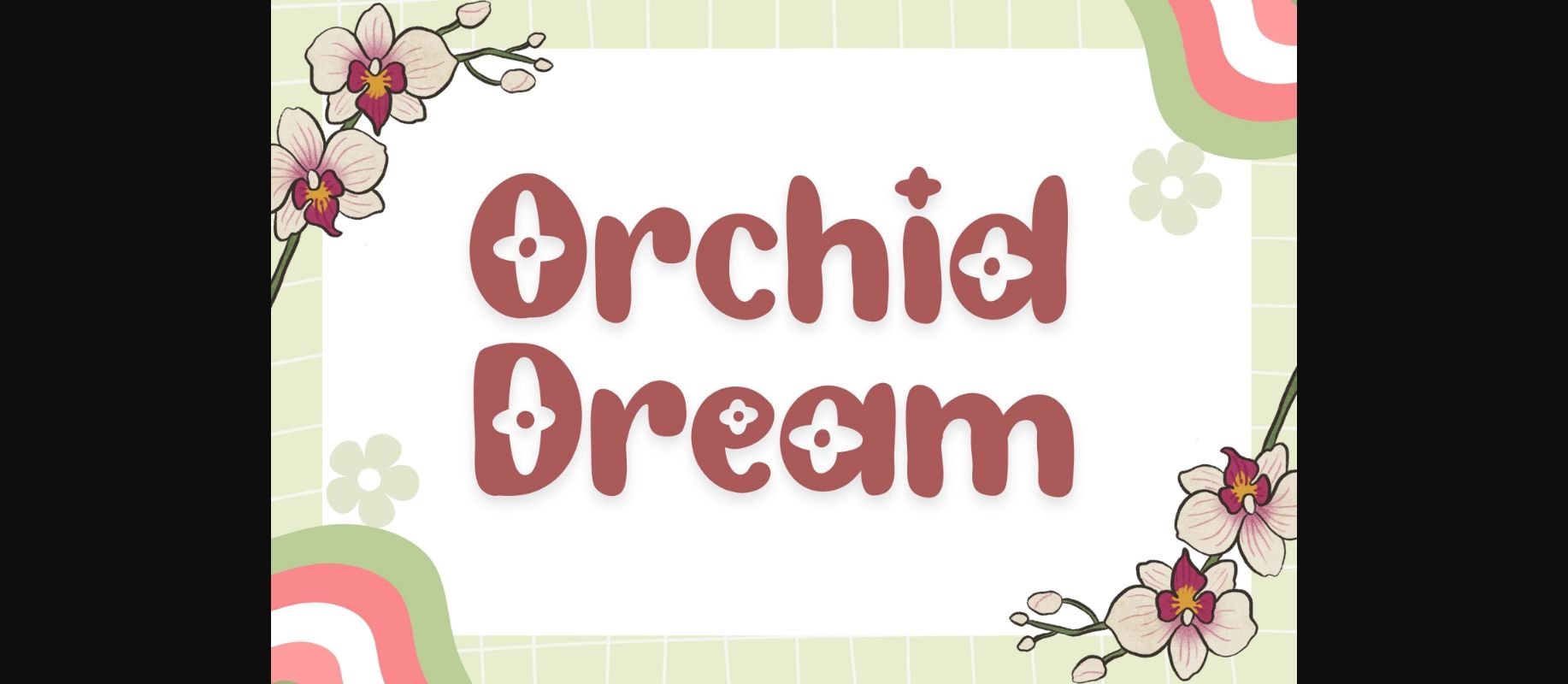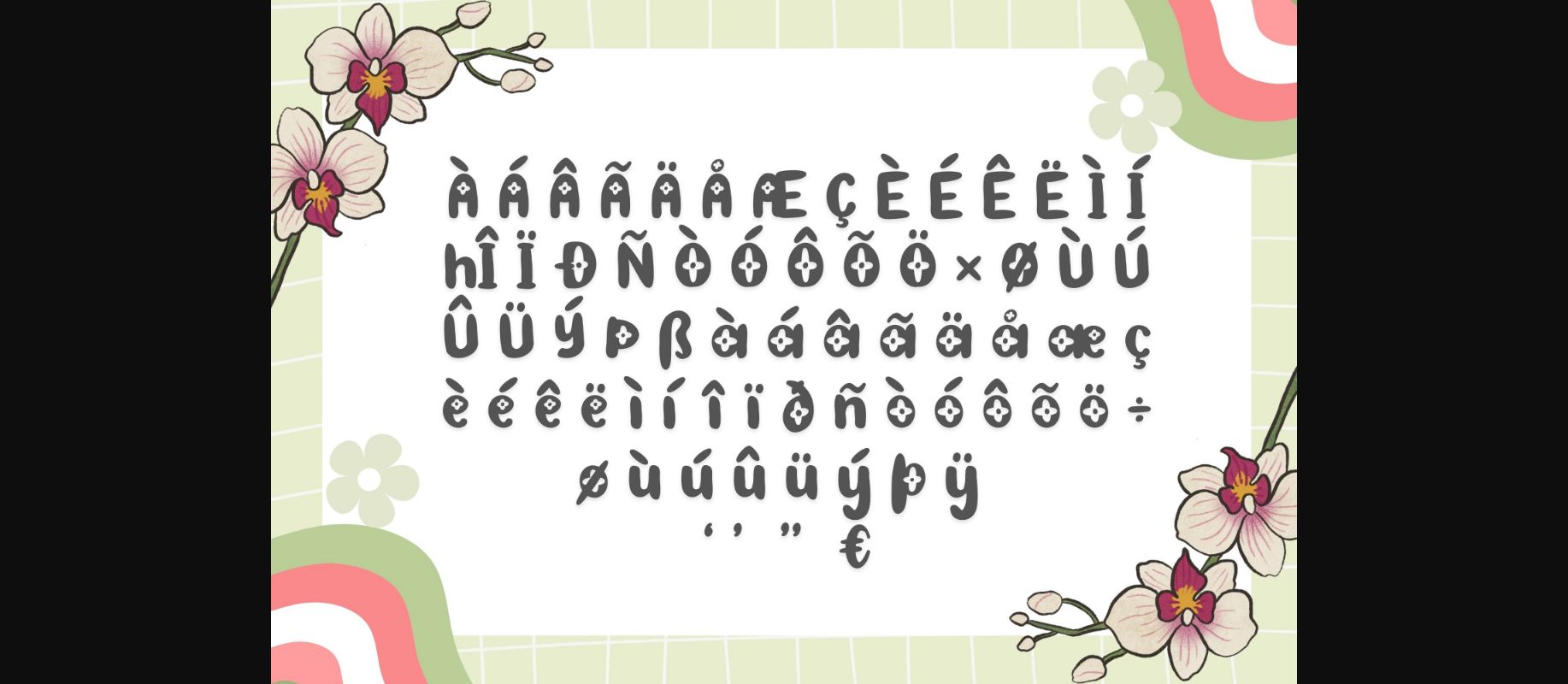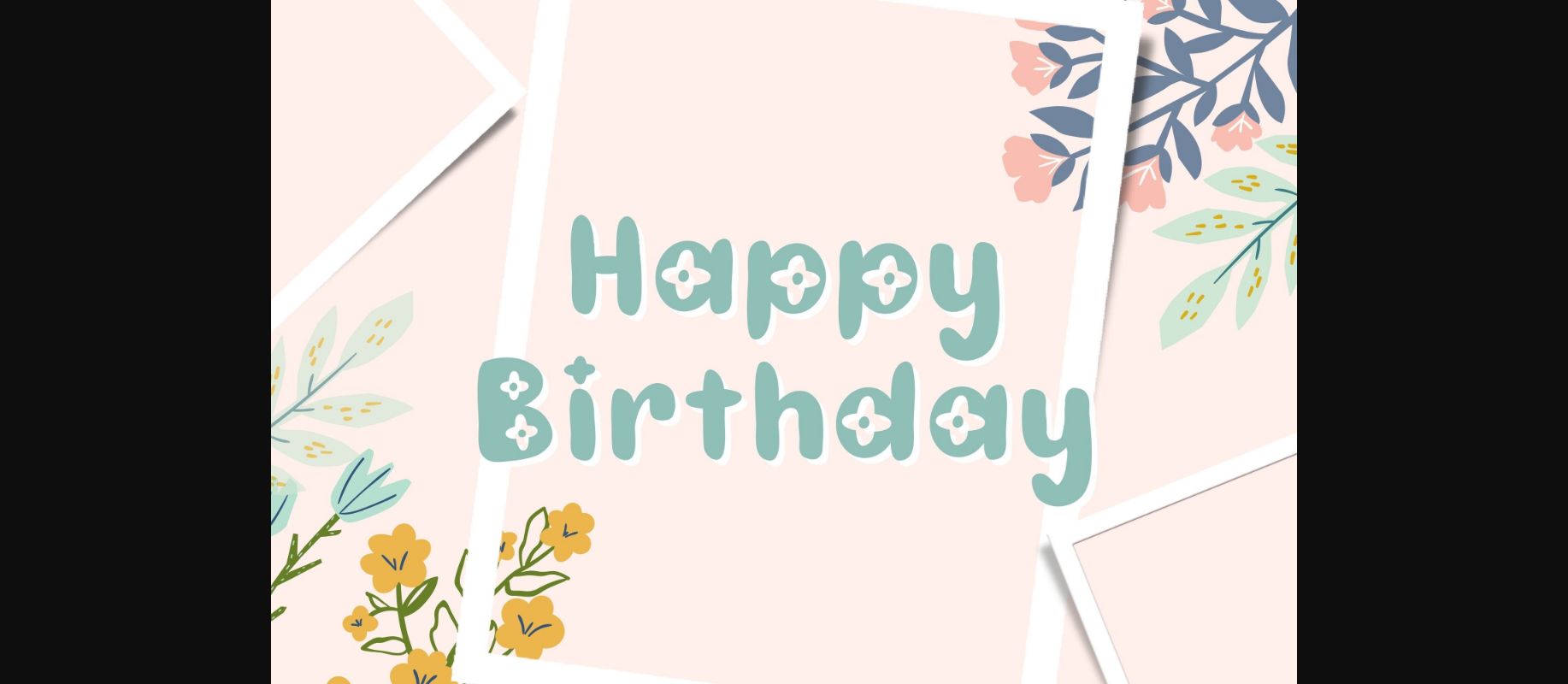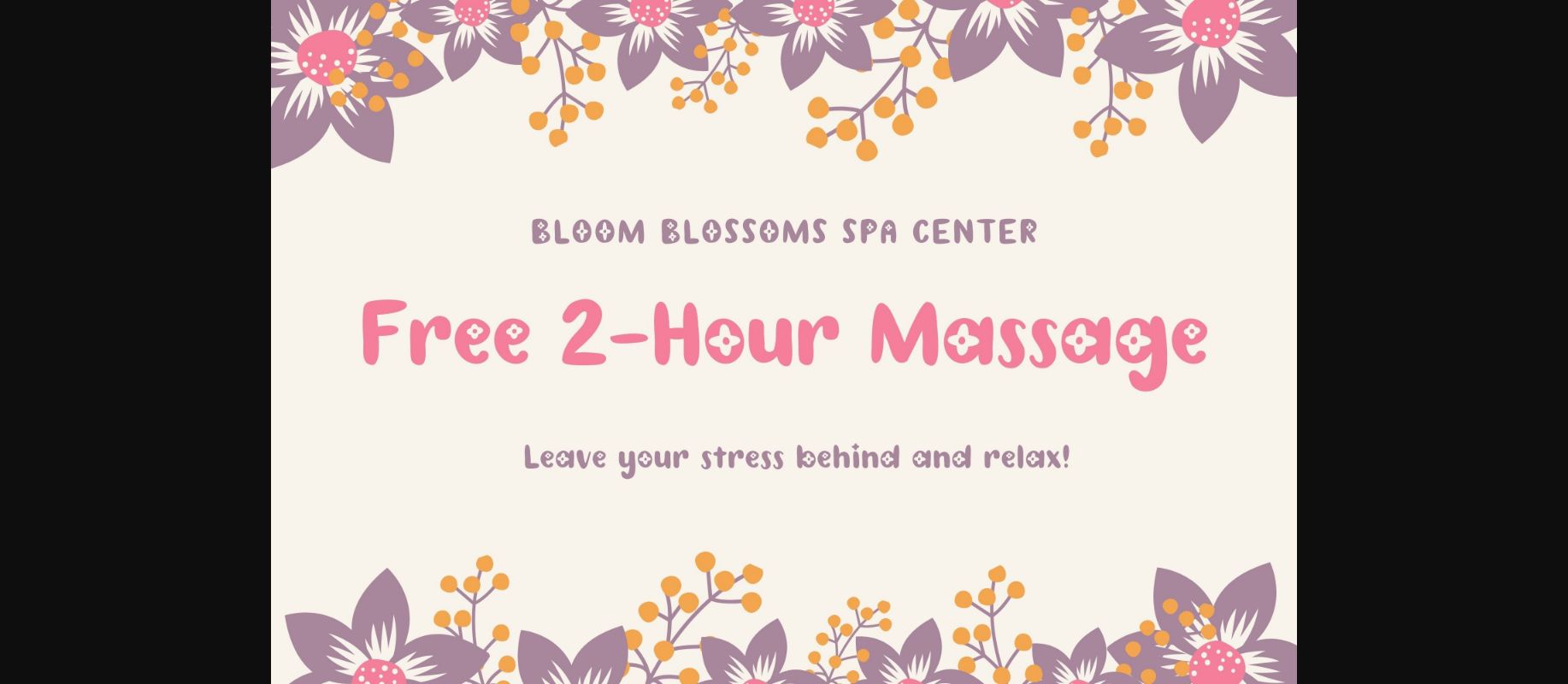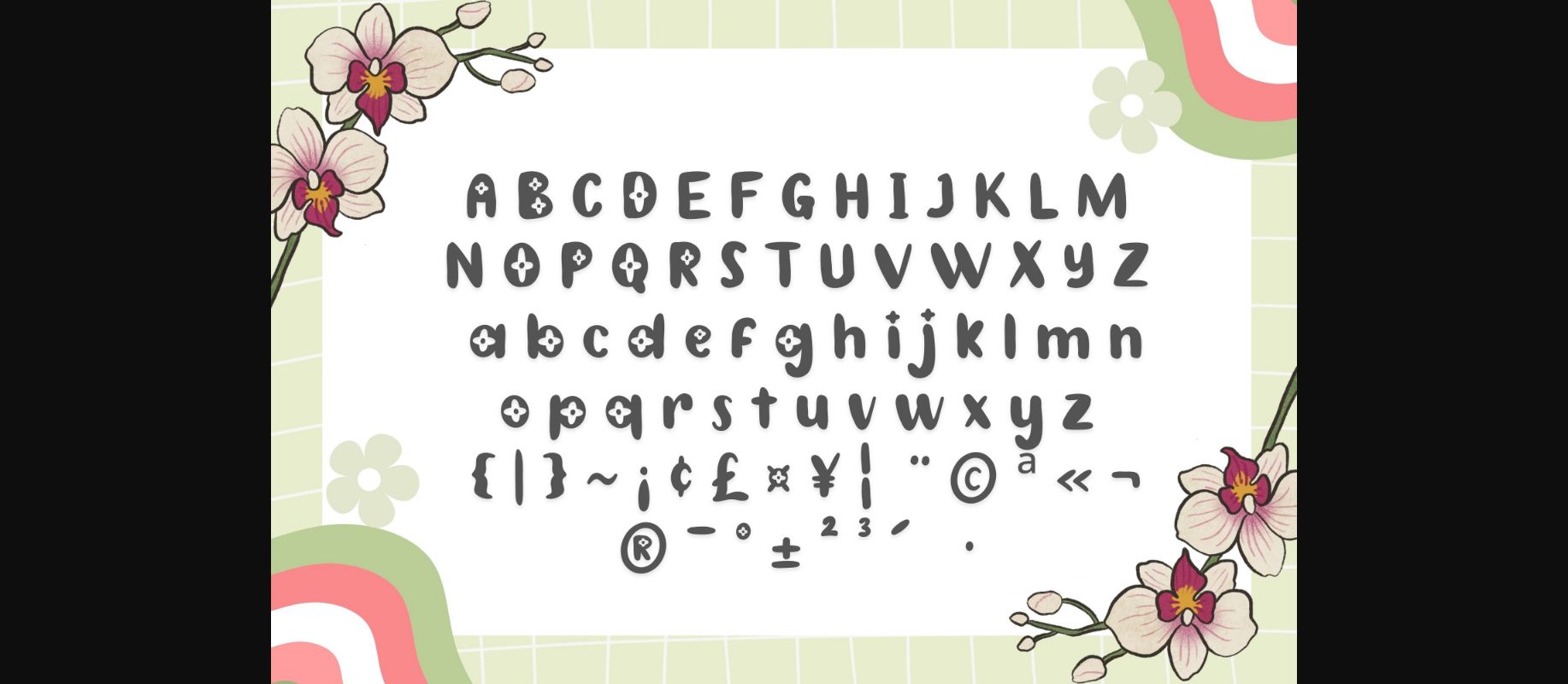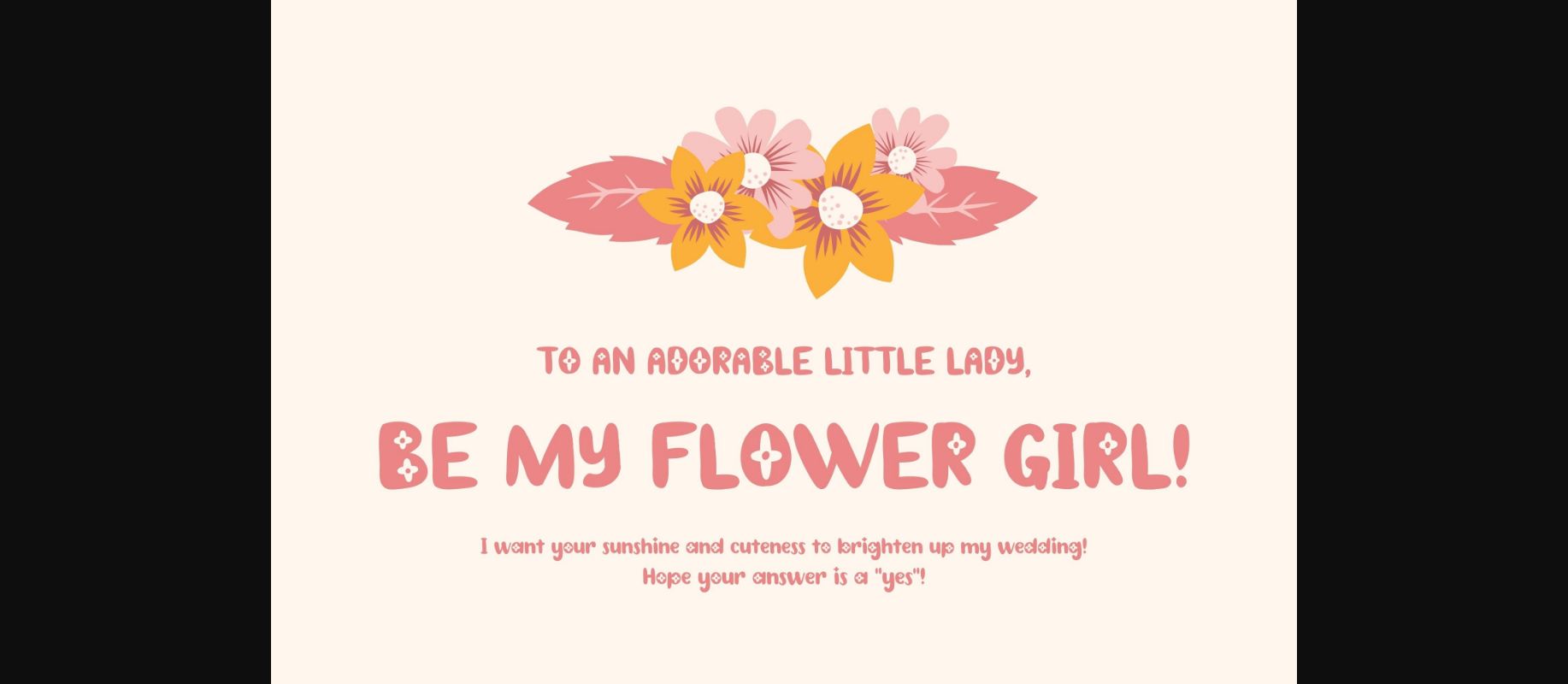
Orchid Dream Font
About Orchid Dream Font
The “Orchid Dream” decorative font is a graceful and whimsical typeface inspired by orchid gardens. It’s perfect for adding an elegant and enchanting touch to invitations, cards, and branding.